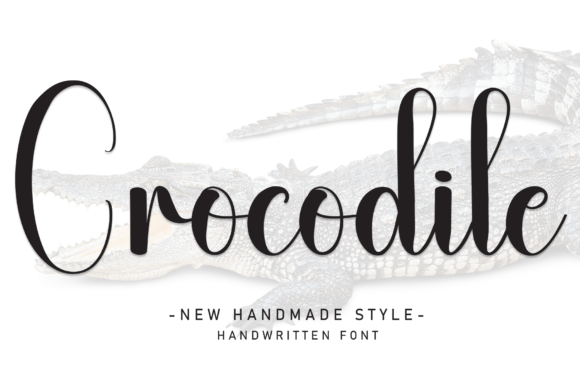
Welcome to the realm of Crocodile Font, a script typeface that captivates with its inherent sweetness and amicable charm. A brainchild of the talented William Jhordy, Crocodile Font seamlessly blends the aesthetics of handwritten calligraphy with the precision of a digital medium. Its smooth, flowing curves and elegant letterforms evoke a sense of nostalgia and warmth, making it an ideal choice for conveying heartfelt messages and creating designs that exude a personal touch.
Crafted with meticulous attention to detail, Crocodile Font features a harmonious interplay of thick and thin strokes, adding depth and dimension to your designs. Its graceful ascenders and descenders impart a sense of rhythm and movement, inviting the reader's eye to dance across the page. Whether you're crafting wedding invitations, heartfelt cards, or any other design seeking a playful and endearing touch, Crocodile Font stands ready to elevate your creative vision.
But Crocodile Font's allure extends beyond its aesthetic appeal. It possesses an underlying technical prowess that ensures optimal performance across a wide range of digital platforms. Meticulously designed with retina display optimization in mind, Crocodile Font guarantees crisp and captivating visuals on even the most pixel-dense screens. Its unwavering clarity and sharpness ensure that your designs retain their integrity and appeal, regardless of the viewing device.
With Crocodile Font as your creative ally, you unlock a world of possibilities. Its versatile nature lends itself seamlessly to a plethora of design applications. Envision the elegance of Crocodile Font gracing your wedding invitations, evoking a sense of timeless romance and heartfelt emotion. Picture its playful charm adorning your greeting cards, conveying heartfelt sentiments with a touch of whimsy. Unleash your creativity and explore the boundless potential of Crocodile Font to transform your designs into captivating expressions of art.
Embrace Crocodile Font and embark on a creative journey where emotions find their voice and designs come to life. Its user-friendly nature makes it accessible to both seasoned designers and those just beginning their creative odyssey. Let Crocodile Font be your guide, leading you through a world of limitless possibilities where your imagination reigns supreme.